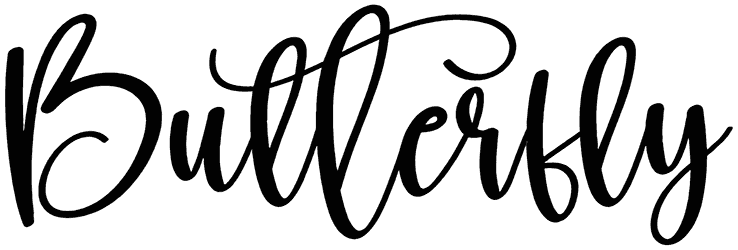
Butterfly Font
Using a playful and sweet butterfly font will make an adorable visual for your unique design and impress your followers. The letters of the Butterfly font are curvy and delicate with a natural and elegant vibe. As an invitation font, it can adorn the words of your wedding card in a ravishing way and mesmerize your viewers.